The infatuation for chrome, in my case, comes from an intense obsession with vintage letterforms mixed with the possibility of acquiring and collecting such pieces. Being the owner of these dimensional objects allows me to imagine the place they once belonged to: a vehicle that witnessed countless of stories, roads and panoramas.
Looking at these pieces I get transported to a time where the pen was mighty and free to move as it pleased without any objection, where the craft of lettering was thriving and experimentation was key. It inspires me to see the many variables and possibilities explored and it invites me to picture the personalities of each car, as portrayed by their emblem.
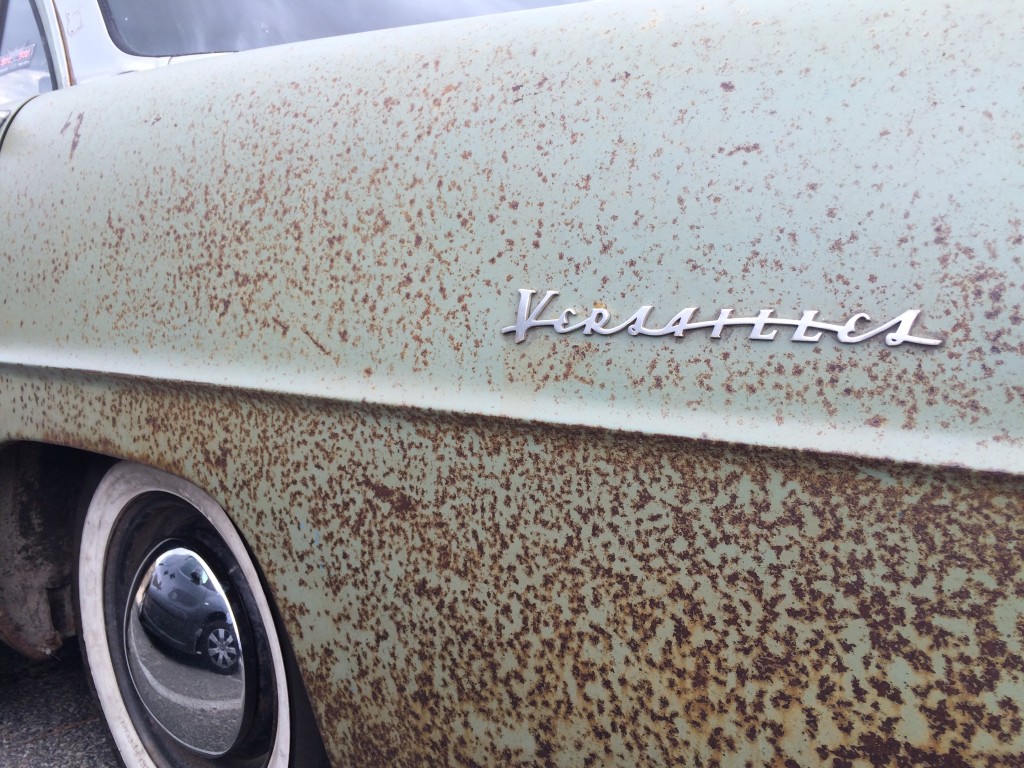
Although my personal favorites are the small x-height scripts with a oversized uppercase, I have to admit that I’m also a sucker for the upright, high contrast emblems.